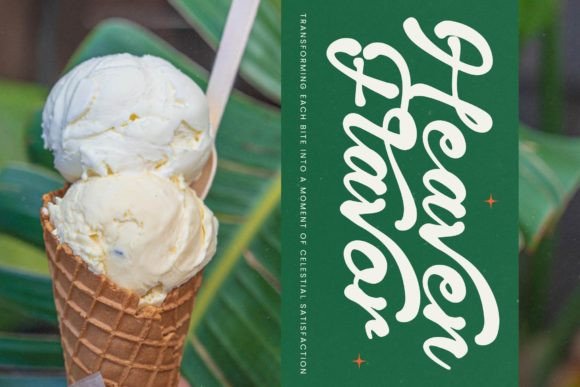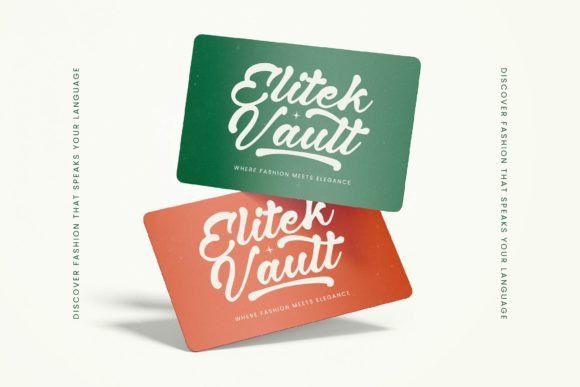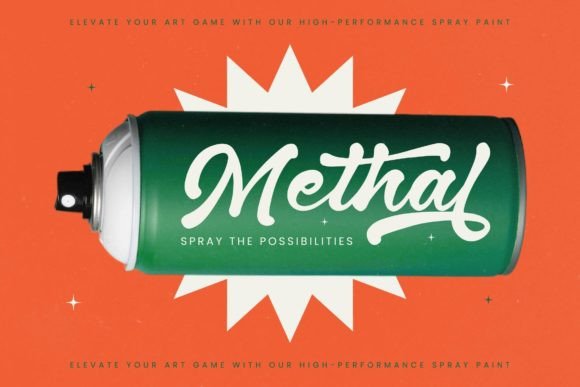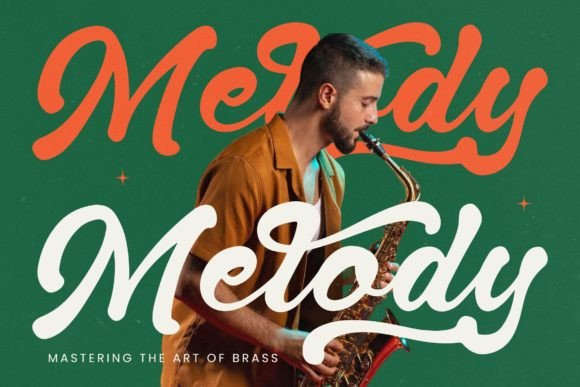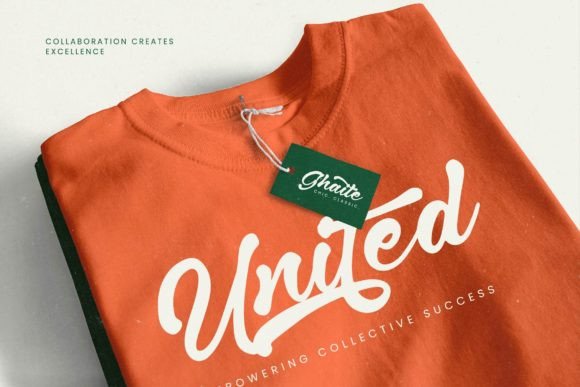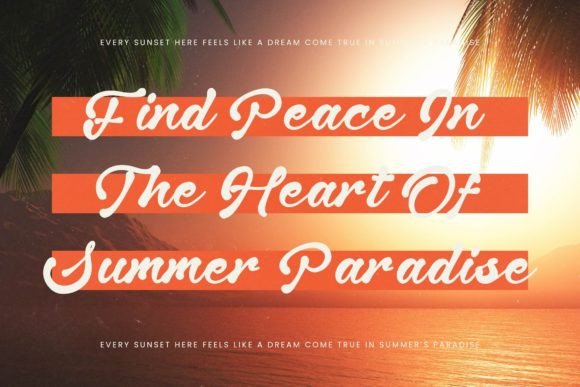
Discover the Elegance of Delight Island Font: Elevate Your Designs with a Touch of Sophistication
In the world of typography, a font can make all the difference in the aesthetic and feel of a design. For those seeking a stylish and elegant touch, Delight Island Font is an exceptional choice. This beautifully crafted handwritten script font is designed to bring a sense of charm and sophistication to any project. Whether you’re working on invitations, branding, social media graphics, or any other design that requires a personal and creative flair, Delight Island is sure to impress.
The Characteristics of Delight Island Font
Delight Island Font stands out with its fluid strokes and natural flow, which together create a captivating and sophisticated look. This font embodies elegance and charm, making it perfect for designers and crafters who aim to add a unique and personal touch to their work. The fluidity of Delight Island’s strokes gives it a dynamic and organic feel, reminiscent of handwritten scripts but with a refined and polished finish.
One of the key advantages of Delight Island Font is its versatility. Its elegant and approachable nature makes it suitable for a wide range of design applications. Here are some of the areas where Delight Island truly shines:
- Invitations: Whether it’s a wedding invitation, a birthday party invite, or any other special occasion, Delight Island adds a touch of class and personal warmth that sets the tone for the event.
- Branding: For businesses looking to establish a brand identity that speaks of elegance, sophistication, and approachability, Delight Island can be a valuable asset. It works well in logos, packaging, and marketing materials.
- Social Media Graphics: In the digital realm, standing out on social media platforms is crucial. Delight Island can help create engaging and stylish social media posts, stories, and banners that capture attention and convey a sense of personality.
Why Choose Delight Island Font?
There are several reasons why designers and crafters might prefer Delight Island Font over other script fonts:
- Elegance and Charm: It offers a unique blend of elegance and charm that can elevate the look of any design.
- Readability: Despite its script nature, Delight Island maintains a high level of readability, making it suitable for both headings and body text.
- Customization: The font’s versatility allows for easy customization to fit the specific needs of a project, whether through color changes, pairing with other fonts, or adjusting the size and spacing.
- Warmth and Creativity: It brings a sense of warmth and creativity to designs, making them more engaging and appealing to viewers.
Tips for Using Delight Island Font Effectively
To make the most of Delight Island Font, consider the following tips:
- Pair with Complementary Fonts: For maximum impact, pair Delight Island with clean, sans-serif fonts to create contrast and visual interest.
- Use Appropriate Colors: Enhance the elegance of Delight Island by using it with a color palette that complements its sophisticated feel. Pastels, neutrals, and rich tones work particularly well.
- Experiment with Sizes: Play with different sizes to create a hierarchy of information and add depth to your designs.
Delight Island Font is a stylish and elegant handwritten script font that can add a touch of sophistication and charm to any design. Its fluid strokes, natural flow, and versatile nature make it an excellent choice for a wide range of projects, from invitations and branding to social media graphics. With its unique blend of elegance, readability, and creativity, Delight Island is sure to become a favorite among designers and crafters looking to elevate their work. Discover the delight of creating with Delight Island Font and bring a new level of warmth and personality to your designs.